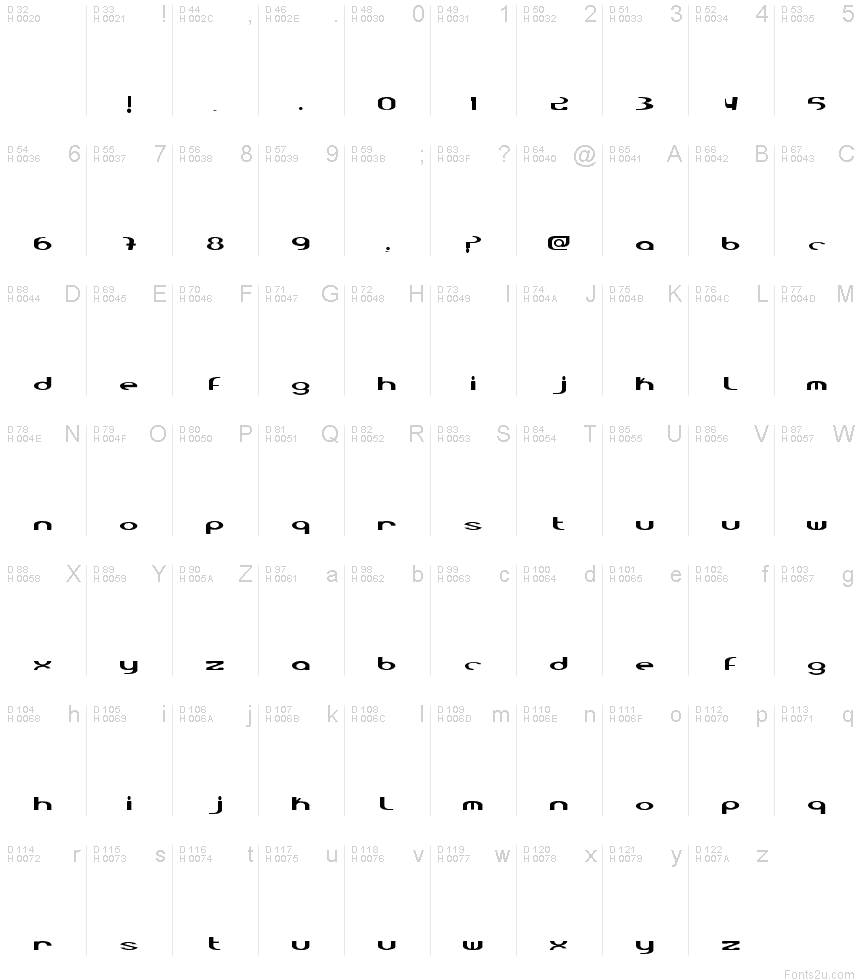
LaureHead
Laure Head font by Remi is a free geometric display font with rounded corners and smooth, low-contrast shapes. Its broad curves, flat terminals, and open inner spaces give it a neat, streamlined rhythm that feels tailored for short, set-piece words rather than long reading.
Laure Head works well for logos, poster titles, album art, packaging, and editorial accents where the letterforms need a clear graphic shape. The rounded geometry gives those uses a tidy, slightly futuristic edge without losing warmth, so it can sit comfortably in branding and headline layouts that need a clean but distinctive voice.